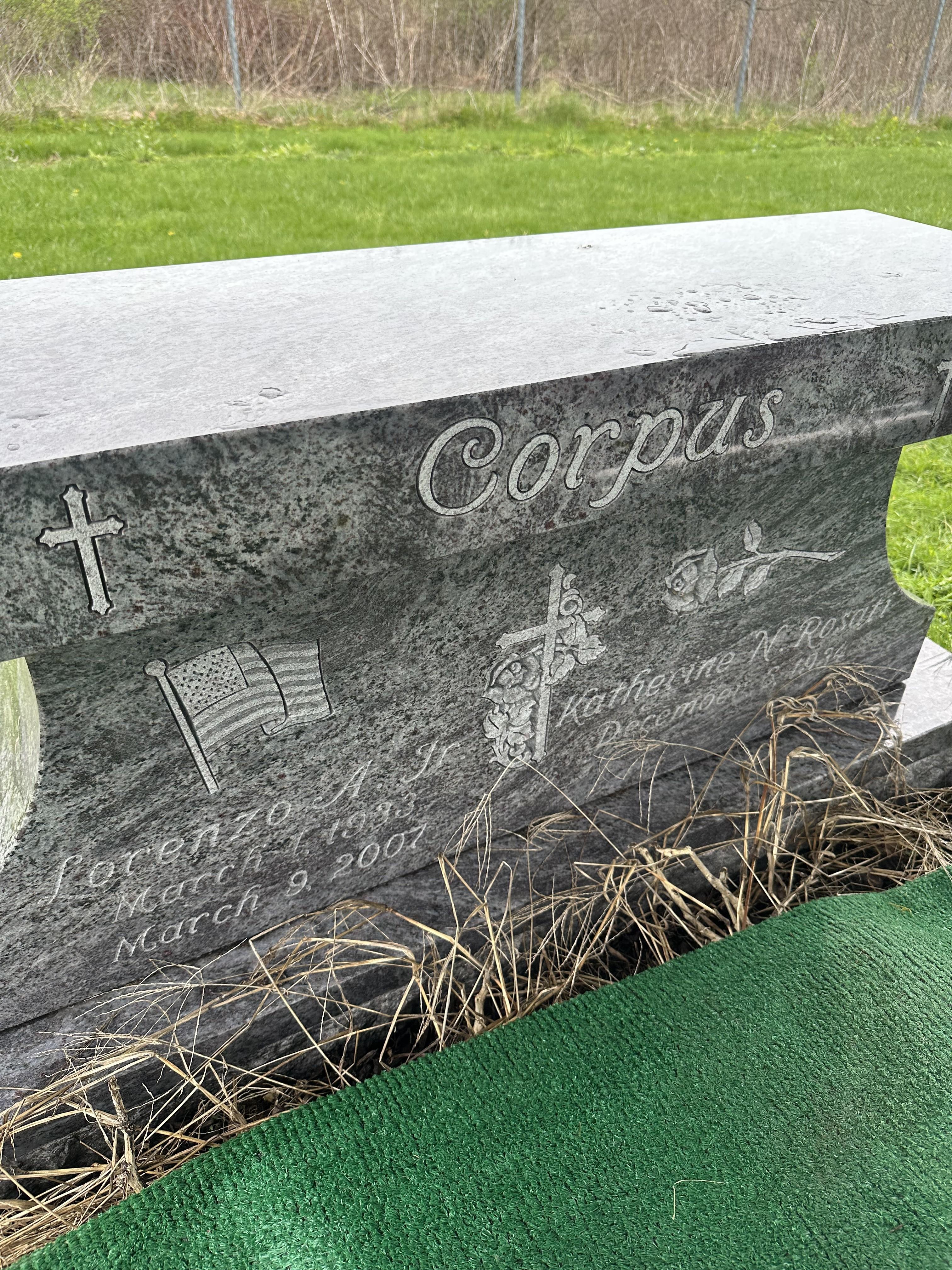
Need to do a date match – anyone know this font?
Hello, this is a Cochran’s software font called Roman Modified Script. It is based on lettering from an old 1923 Vermont Marble Company booklet named Lettering in Marble.